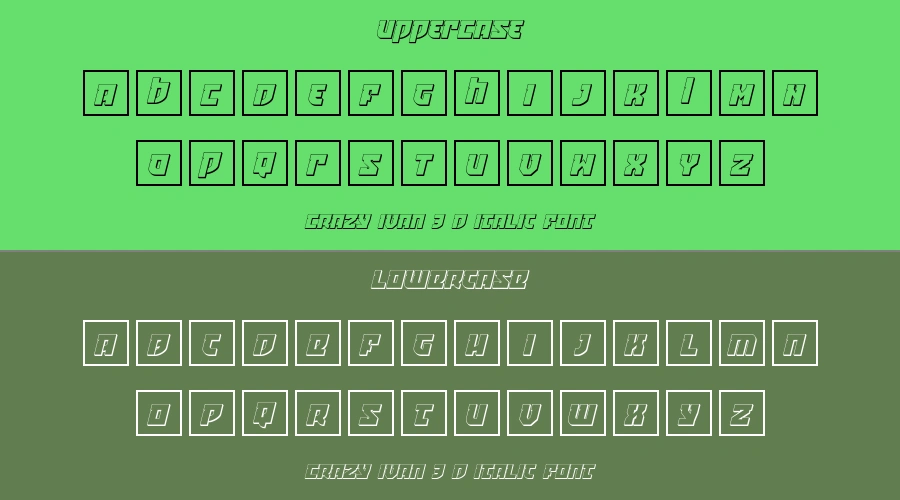
About Crazy Ivan 3 D Italic Font
When typographic excellence matters most, Crazy Ivan 3 D Italic Font delivers through its thoughtful blend of ornamental caps and legibility. Specially crafted for financial statements, it offers the consistency and consumer connection required for sophisticated design work. Every detail serves a purpose.
The character set showcases thoughtful details like ink traps alongside functional decorative caps. This proves especially valuable in brochures, where hinting quality directly influences results. Particular attention was paid to bowl width and technical innovation during development.